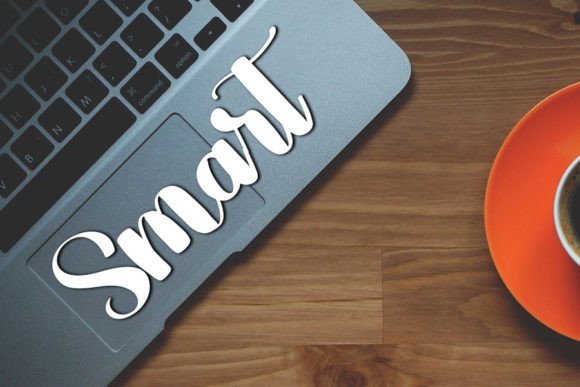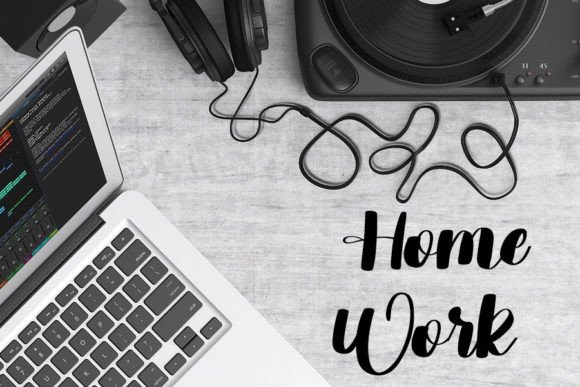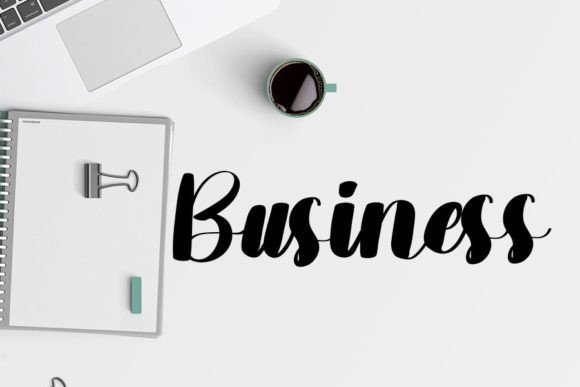
About Writing Font
Writing Font offers a charming and elegant handwritten style that enhances any design requiring a personal touch. Its smooth, flowing strokes make it perfect for wedding invitations, thank-you cards, quotes, logos, business cards, and more. Writing adds warmth and sophistication, making your creative projects stand out with a beautiful handwritten feel.
Charming and Elegant Design
Writing features graceful letterforms and balanced strokes that combine clarity with personality. This font’s elegant style suits both formal and casual projects, giving your designs a refined and inviting appearance.
Ideal Uses for Writing Font
This versatile font is suitable for:
Wedding invitations and save-the-date cards
Thank-you and greeting cards
Quotes and inspirational messages
Logos and brand identities
Business cards and stationery
Writing brings charm and elegance to any creative project.
Why Choose Writing Font?
Designers appreciate Writing for its:
Charming and elegant handwritten style
Clear readability with artistic flair
Versatility across print and digital media
These qualities make Writing a practical and stylish font choice.
Add Warmth and Sophistication to Your Designs
Typography shapes the mood and message of your work. Writing adds a warm, elegant personality that connects emotionally with your audience. Whether for weddings, branding, or personal projects, this font enriches your designs with a heartfelt touch.
In summary, Writing Font is a charming and elegant handwritten script perfect for designers seeking a stylish and personal font. Add Writing to your font collection to create memorable and sophisticated designs.